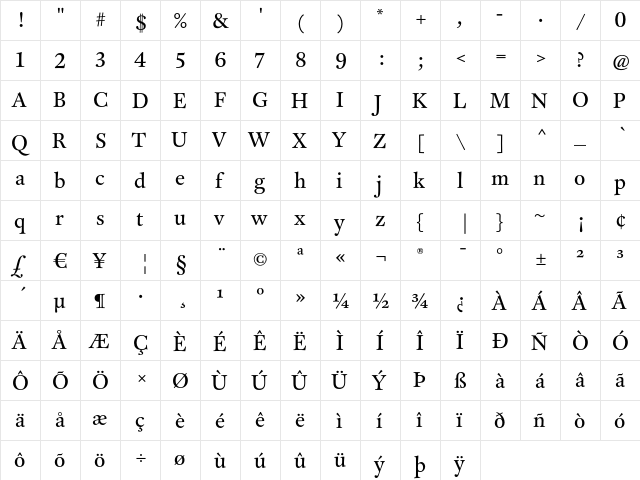
CliffordEighteen RomanLFF Font Preview
CliffordEighteen RomanLFF
CliffordEighteen RomanLFF Font Details
| Style | RomanLFF |
Design Context for CliffordEighteen Typeface
CliffordEighteen takes a measured approach to typography — its balanced proportions and neutral character make it a reliable workhorse for both digital and print work.